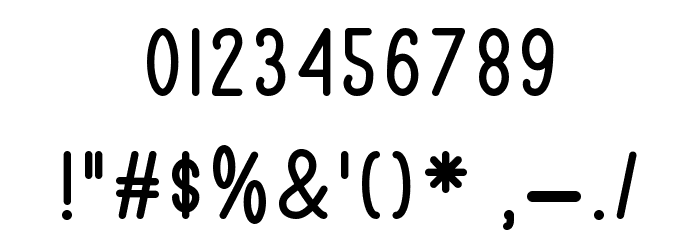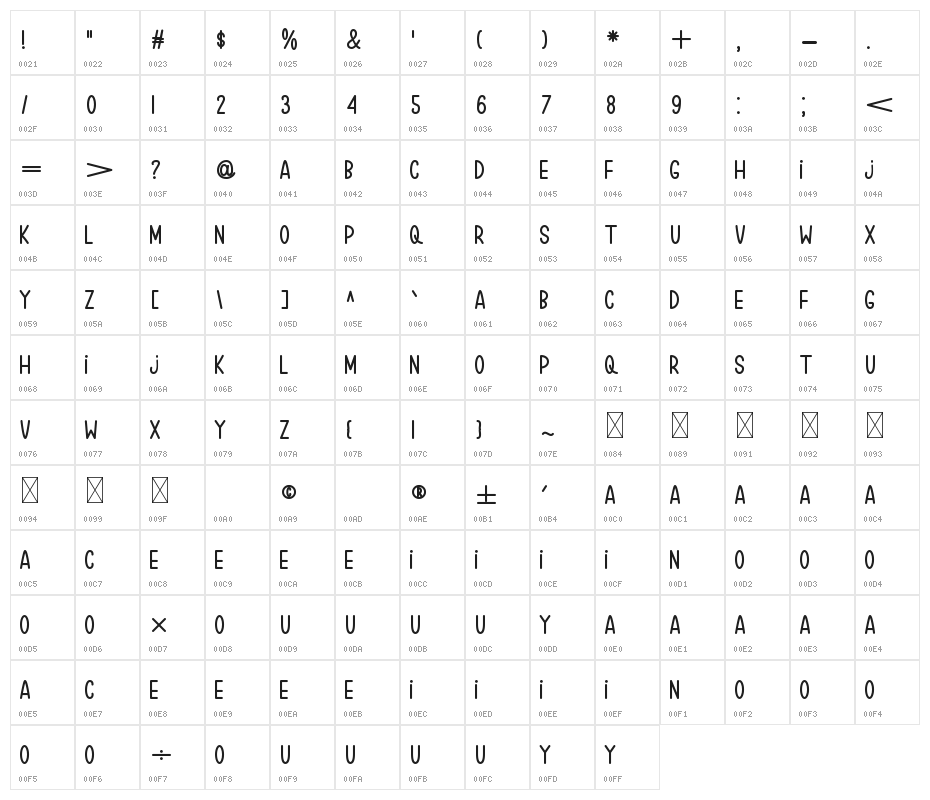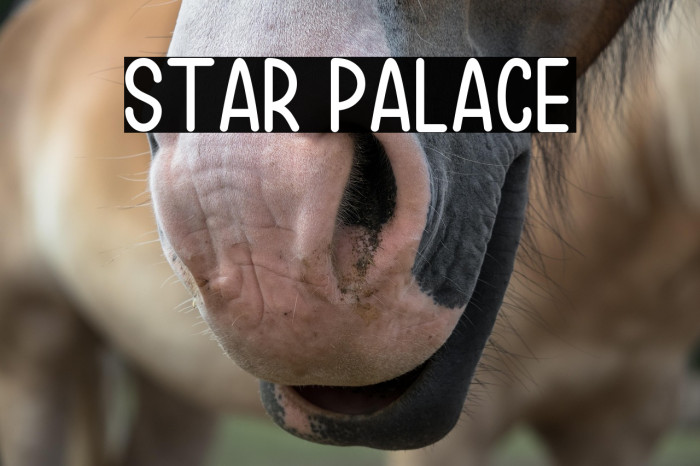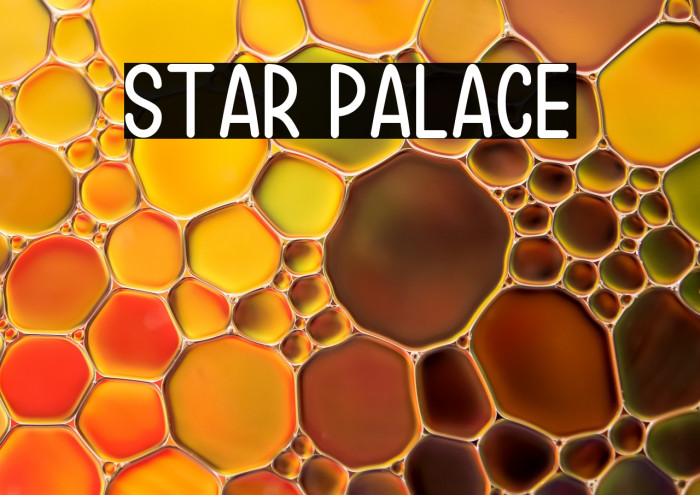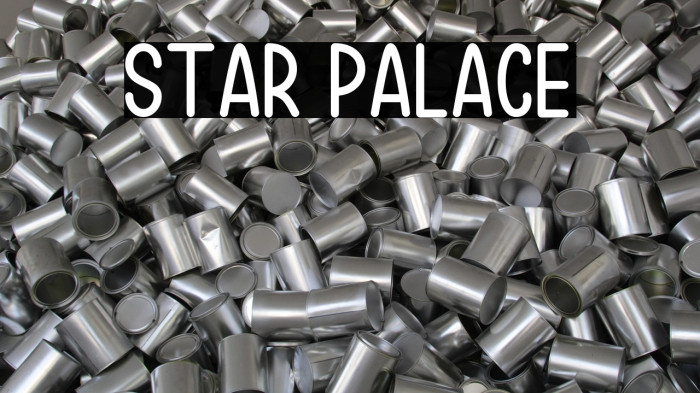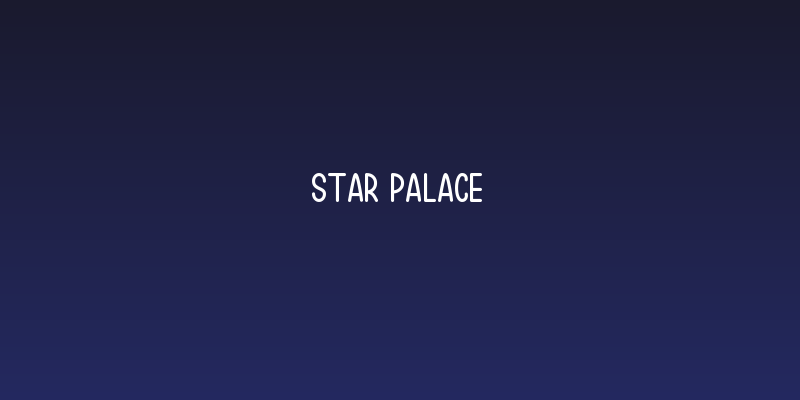
Star Palace Font
Star Palace Description
This font features a playful and rounded style, characterized by its smooth curves and friendly appearance. The letters are evenly spaced, providing a clean and approachable look. The uppercase and lowercase letters maintain a consistent style, with a slight variation in size and shape that adds to its charm. The numerals are clear and easy to read, complementing the overall design. Special characters are well-integrated, maintaining the font's cohesive aesthetic. This font's simplicity and warmth make it versatile for various design needs.
| Use Case | Headlines, Logos, Casual Text |
| Proposed Projects | Ideal for children's books, playful branding, casual invitations, and social media graphics. |